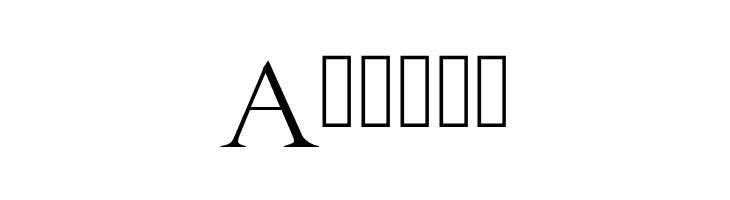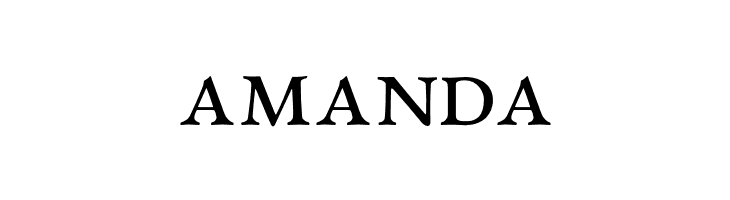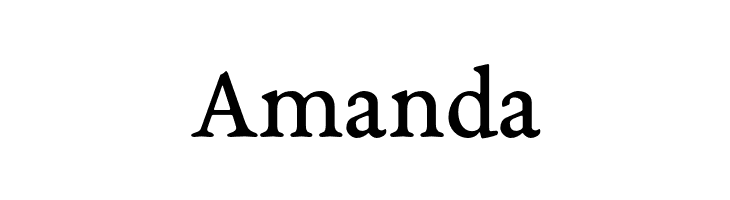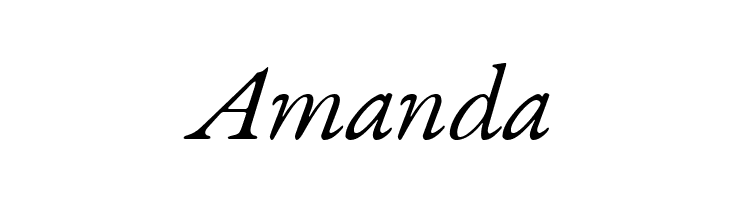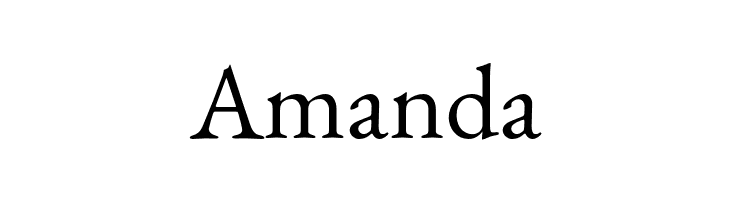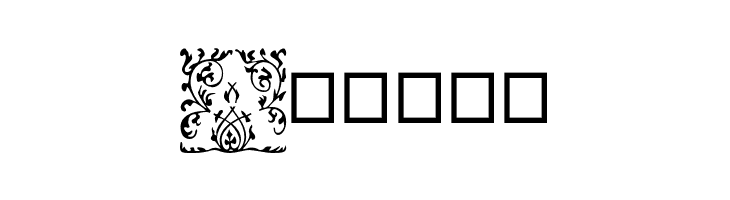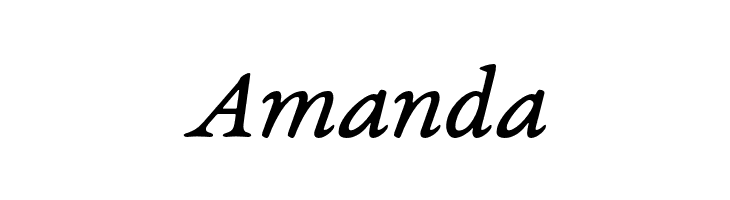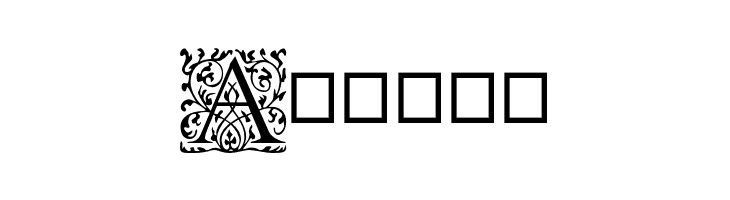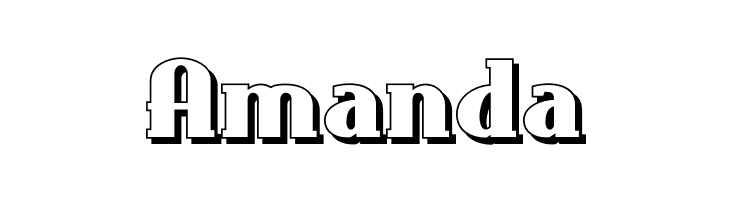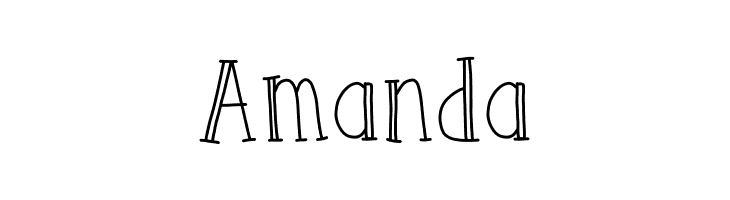
A bold, tire tread-inspired font with a rugged, industrial style.
A futuristic, geometric font with bold, angular letterforms.
A bold, playful handwritten font with smooth curves and rounded edges.
A bold, futuristic font with sharp angles and geometric shapes.
A bold, playful font with a hand-drawn, sketch-like appearance.
A playful, eclectic font with a cut-and-paste ransom note style.
A playful, hand-drawn font with a whimsical and casual style.
A playful and elegant collection of Easter-themed icons, perfect for festive designs.
A whimsical, mushroom-themed decorative font with a playful, hand-drawn style.
A bold, three-dimensional font with strong lines and a shadowed effect.
A bold, geometric font with clean lines and a modern aesthetic.
A bold, graffiti-inspired font with sharp angles and urban flair.
A casual, handwritten font with a relaxed and approachable style.
A casual, handwritten-style font with fluid, natural strokes.
An elegant script font with flowing, interconnected letters and decorative swashes.
A bold, brush-style font with dynamic, expressive strokes.
A bold, hand-drawn font with an expressive and dynamic style.
A classic serif font with elegant, balanced proportions and refined details.
An elegant, classic italic serif font with refined, flowing characters.
A classic serif font with elegant proportions and refined details.
A classic, elegant serif font with a graceful italic style.
A classic serif font with elegant, balanced letterforms and refined details.
A classic serif font with elegant, refined strokes and moderate contrast.
A bold, classic serif font with high contrast and elegant serifs.
A bold, italic serif font with a classic and elegant style.
A bold, classic serif font with high contrast and elegant letterforms.
An ornate, decorative font with intricate floral embellishments.
A classic serif font with high contrast and elegant letterforms.
An elegant serif font with a classic italic style and refined serifs.